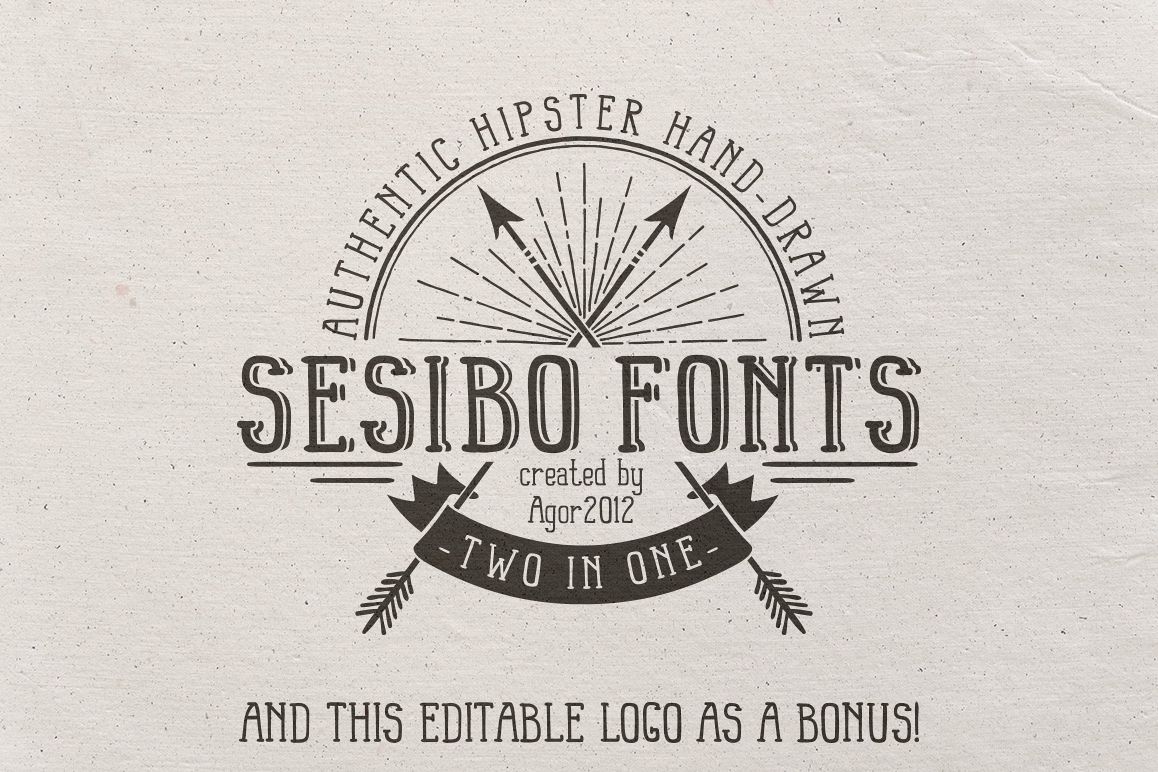
Let me introduce the original authentic hand-drawn hipster fonts - Sesibo family. This font is perfect for retro design of logos, badges, tattoos, as well as lettering.Included: